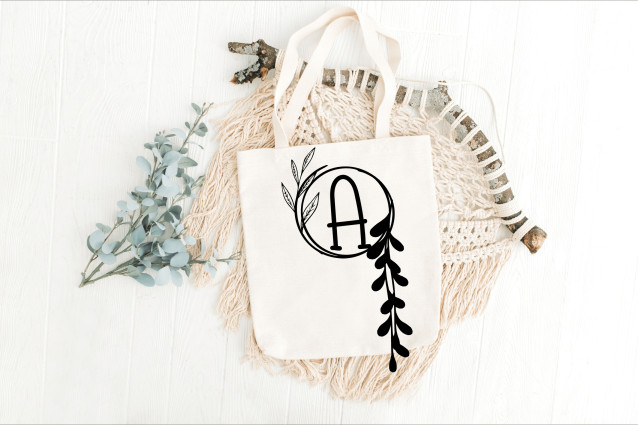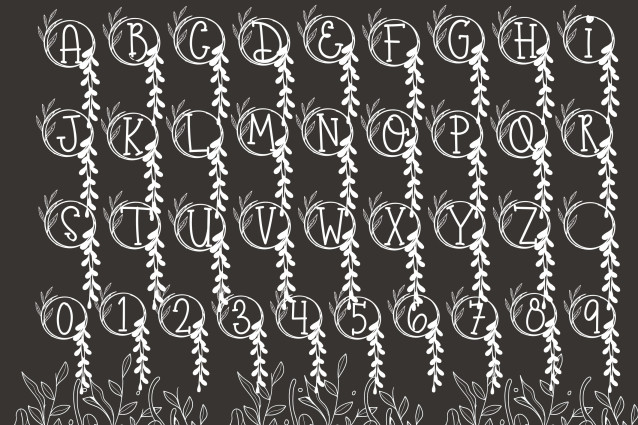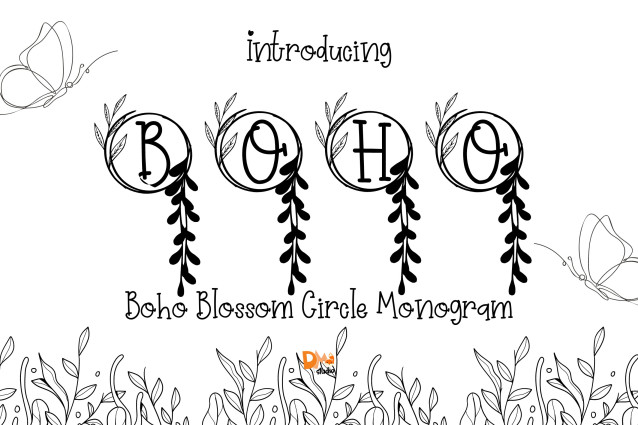
Boho Blossom Circle Monogram Font
Boho Blossom Circle Monogram is a radiant serif monogram font where each uppercase letter is beautifully framed in a circle of hand-drawn floral blooms. Blending rustic charm with feminine elegance, this typeface is perfect for wedding monograms, Cricut crafts, branding, and seasonal packaging that need a fresh botanical flourish.